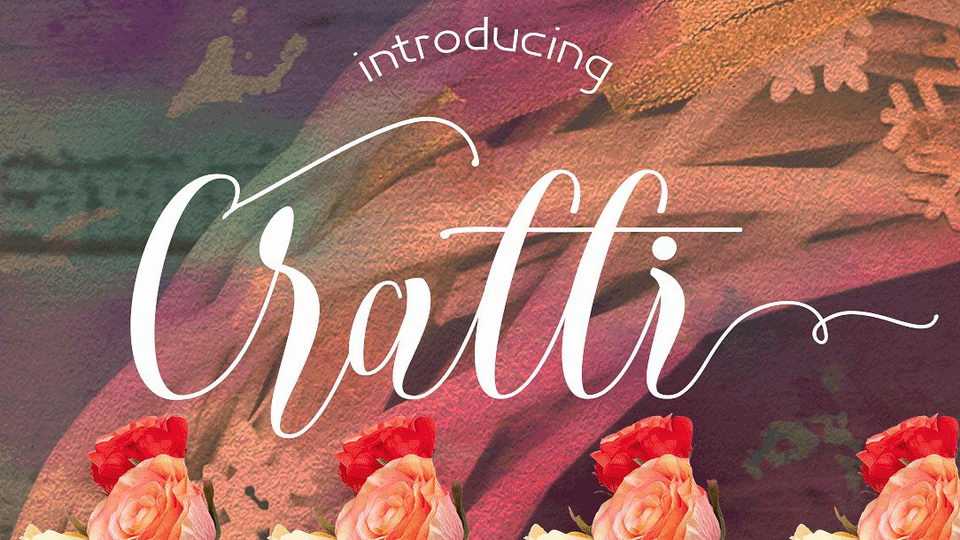
Cratti Script Font › Fontesk – Download Grátis
Download Cratti font, a beautiful modern calligraphy script, with characters dance along the baseline and elegant touch. Can be used for various purposes such as logos, wedding invitation, letterhead, signage,news, t-shirt, heading lable, posters, badges etc